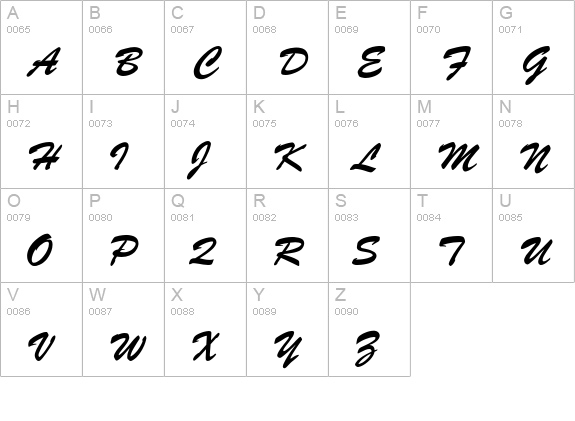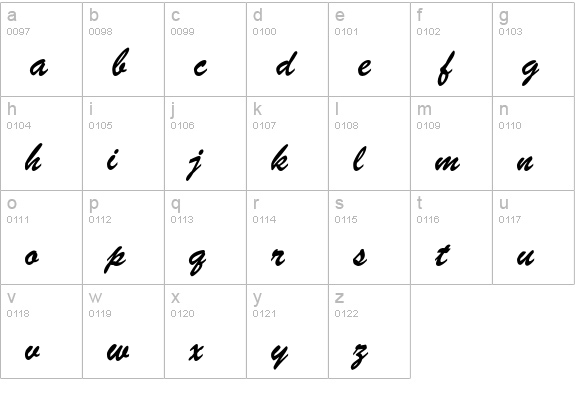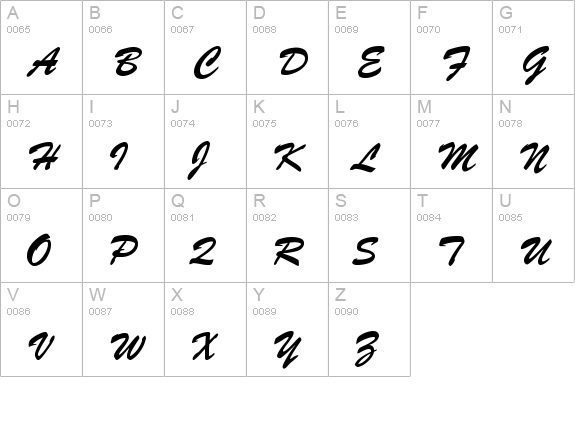
Brush BQ Font Details
Introducing Brush BQ, a stunning and versatile font that brings a touch of elegance and creativity to your design projects. This unique typeface features fluid brush strokes that exude a sense of artistic flair and sophistication. Brush BQ is perfect for a wide range of design applications, from logos and branding to posters and social media graphics. The best part? Brush BQ is completely free to download at FontsMarket.com. This means you can elevate your designs with this beautiful font without any cost involved. Don't miss out on the opportunity to add Brush BQ to your font collection and take your projects to the next level. Download it now and let your creativity shine!